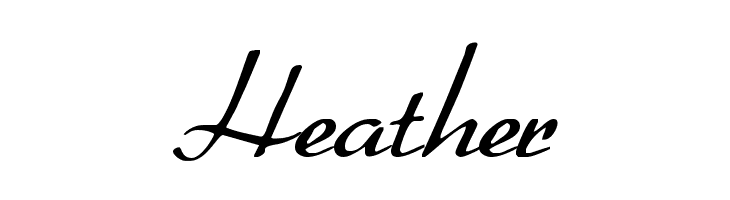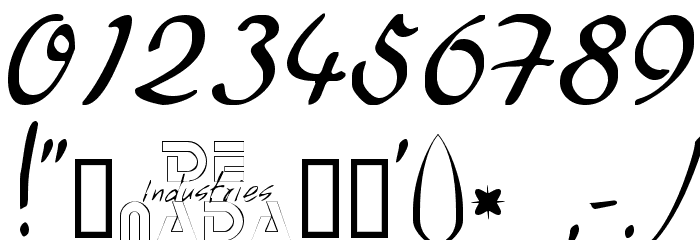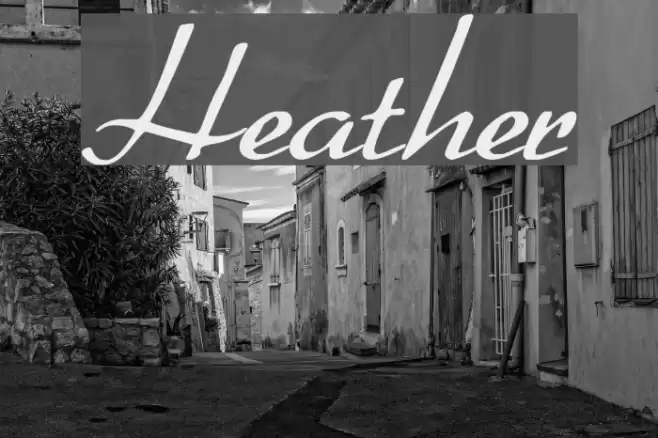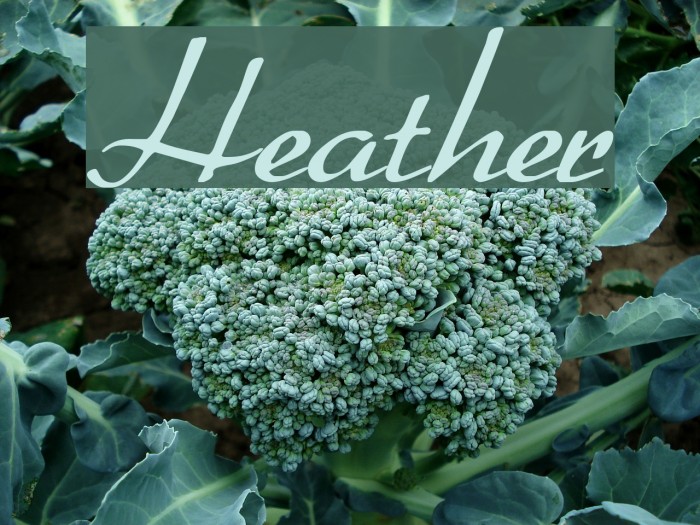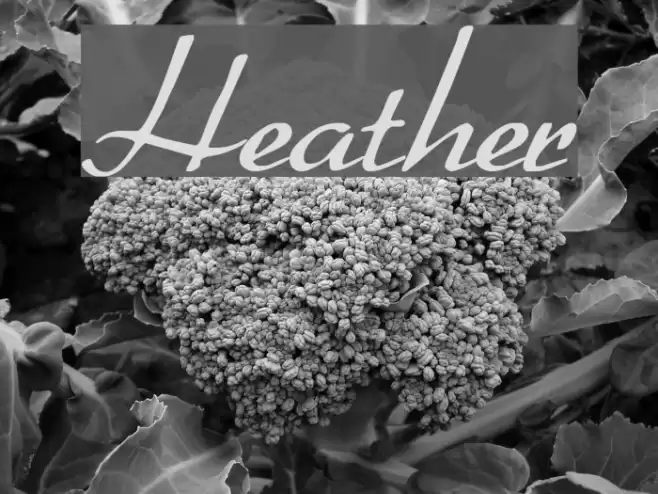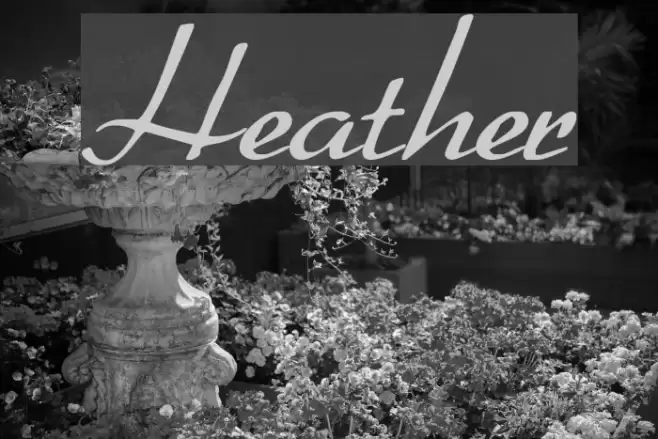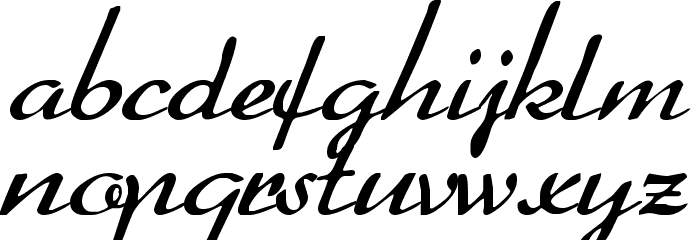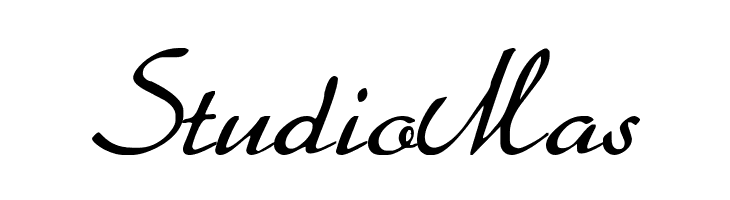
Heather Font
✎ Calligraphic
Heather Description
This font features an elegant script style with flowing, connected letters that evoke a sense of sophistication and grace. The uppercase letters are slightly more ornate, with flourishes that enhance their visual appeal. The lowercase letters maintain a consistent flow, making them suitable for both formal and creative applications. The numerals are clear and maintain the script's aesthetic, ensuring readability while preserving style. Special characters are thoughtfully designed to match the overall elegance of the font, making it versatile for various uses. This script font is ideal for projects that require a touch of class and elegance, such as invitations, branding, and decorative text.
| Overall Style | Elegant, Decorative |
| Use Case | Headlines, Logos, Invitations |
| Proposed Projects | Ideal for wedding invitations, branding, greeting cards, and decorative signage. |